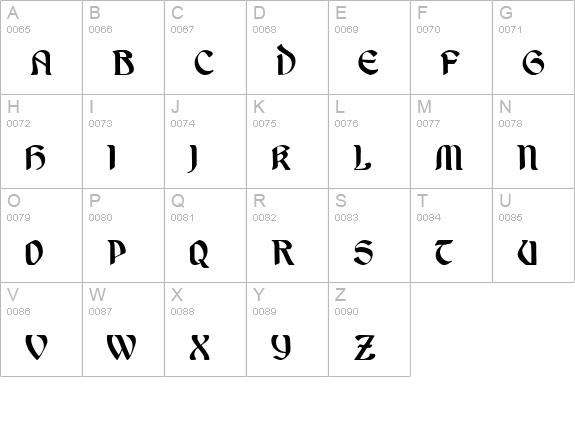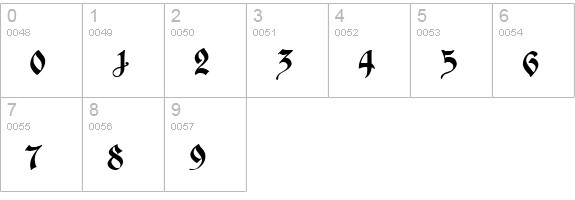
Undineâ„¢ Font Details
Undine™ font is an exquisite typeface that captivates with its graceful curves and elegant design. It effortlessly combines classic and modern elements, making it a versatile choice for various design projects. With its delicate strokes and refined letterforms, Undine™ font exudes a sense of sophistication and charm. This font is not only visually appealing but also highly functional. Its legibility ensures that your message will be conveyed with clarity and impact. Whether used for headlines, body text, or branding materials, Undine™ font adds a touch of refinement to any composition. One of the most remarkable aspects of Undine™ font is that it is available for free. Yes, you heard it right - this exceptional font can be downloaded at no cost from FontsMarket.com. This generous offer allows designers, artists, and typography enthusiasts to access a high-quality typeface without any financial barriers. The creators of Undine™ font understand the importance of providing accessibility to exceptional design resources. By offering it for free, they empower creatives to explore their artistic vision and elevate their projects to new heights. This font is a testament to their commitment to fostering creativity and supporting the design community. Undine™ font is compatible with various platforms and can be seamlessly integrated into both print and digital projects. Its versatility makes it suitable for a wide range of applications including advertisements, packaging, logos, invitations, and more. With its timeless appeal and modern edge, Undine™ font is sure to leave a lasting impression on your audience. So, why wait? Embrace the beauty of Undine™ font and enhance your designs with its exquisite aesthetics. Download it for free today at FontsMarket.com and unlock a world of possibilities for your creative endeavors.